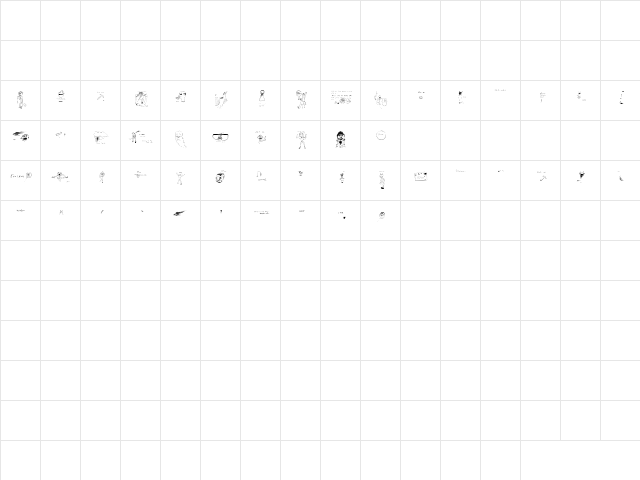
Stalker Regular
Design Context for Stalker Typeface
Stalker is a composed and adaptable typeface that performs quietly and consistently across a wide range of design contexts.